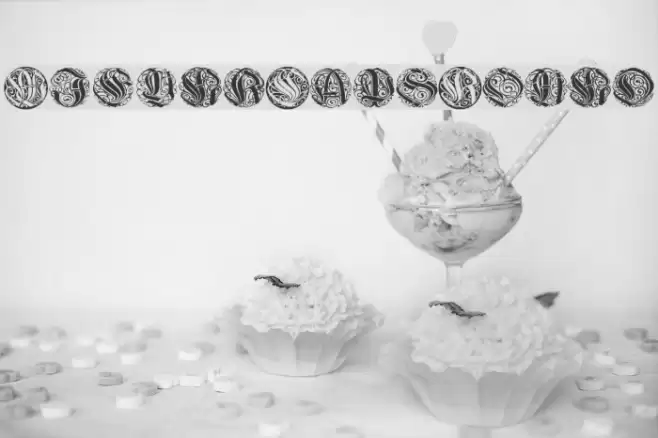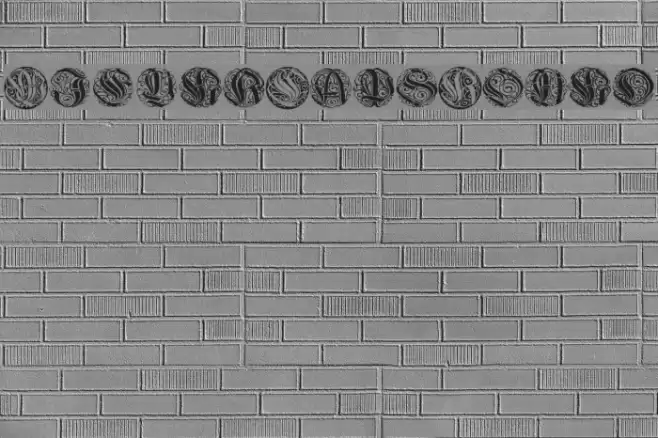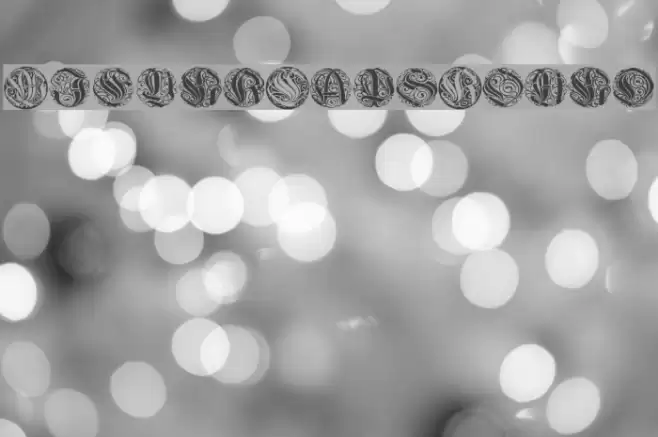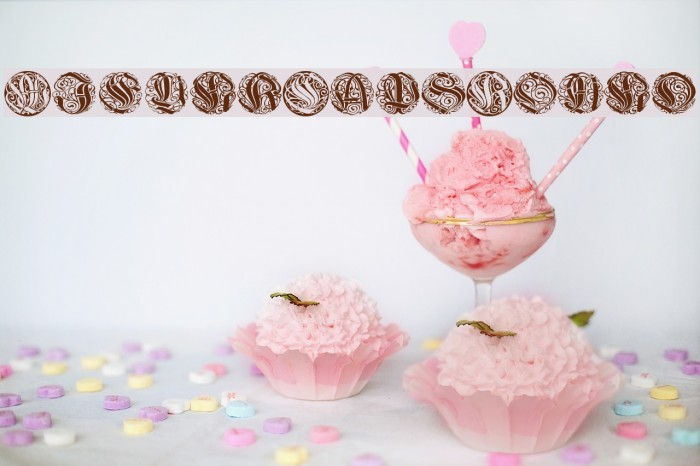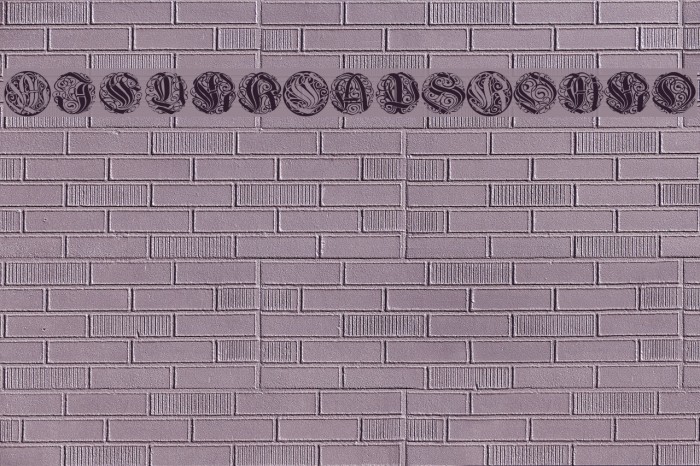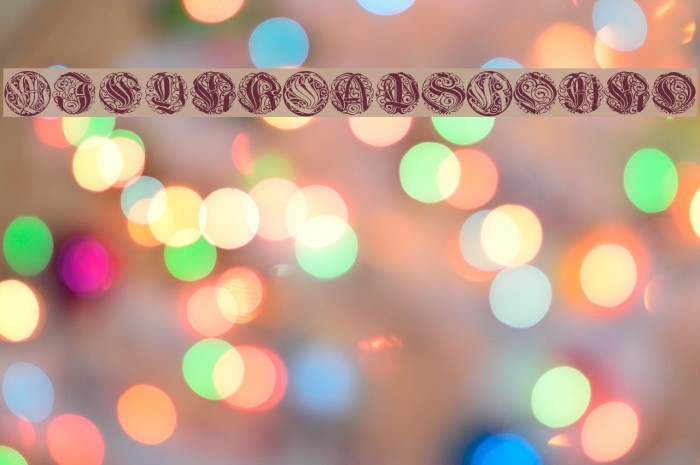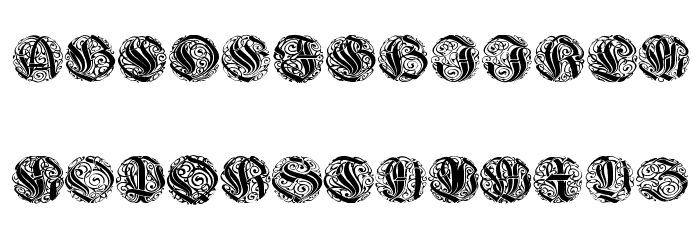
WieynkCapsRound Font
WieynkCapsRound Description
This font features an ornate and decorative style, with each character encased in a circular form. The letters are intricately designed with swirling patterns and embellishments, creating a sense of elegance and complexity. The overall appearance is reminiscent of vintage or classical art, making it suitable for projects that require a touch of sophistication and artistic flair. The characters are bold and stand out due to their detailed design, which may not be suitable for body text but works well for decorative purposes.
An ornate, decorative font with intricate swirling patterns in circular forms from Gothic fonts.
- Proposed Projects: Ideal for use in invitations, artistic posters, branding for luxury products, or any project requiring a vintage or classical aesthetic.
- Overall Style: Vintage
- Use Case: Logos, Headlines, Decorative elements